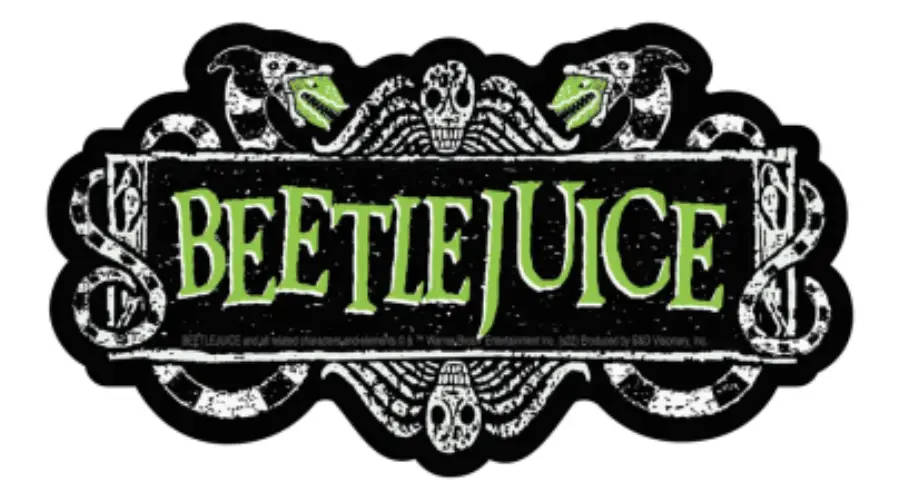
The Beetlejuice Font is a distinctive typeface inspired by the 1988 cult classic film “Beetlejuice,” directed by Tim Burton. The font used in the movie’s title logo is a replica called Dark Alley, designed by FG Studios. This typeface captures the spooky, quirky, and playful atmosphere of the film, making it a favorite for Halloween designs, movie-inspired themes, and branding with a gothic edge.
If you’re looking to recreate the Beetlejuice vibe, here are some similar fonts that match its quirky, grunge, and retro style:
Dark Alley by FG Studios
This is a replica font that closely resembles the lettering used in the Beetlejuice logo. It’s perfect for capturing the same spooky yet fun aesthetic.
Caslon Antique by Bernd Nadall (Published by GroupType)
This font offers a similar vintage and slightly distressed look, making it a great alternative for projects inspired by Beetlejuice.
Grunge Formal by Scholtz Fonts
A distressed typeface with an elegant yet edgy appearance, offering a similar vibe.